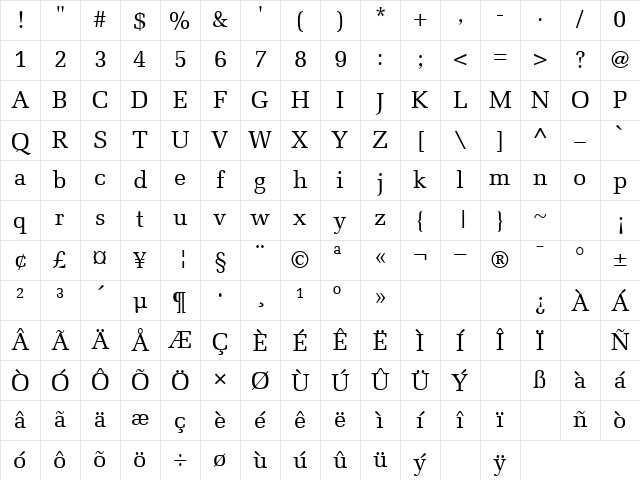
Endless Normal
Endless Family
Design Context for Endless
Endless is a composed and adaptable typeface that performs quietly and consistently across a wide range of design contexts.